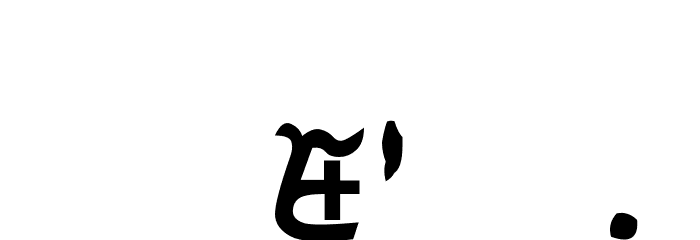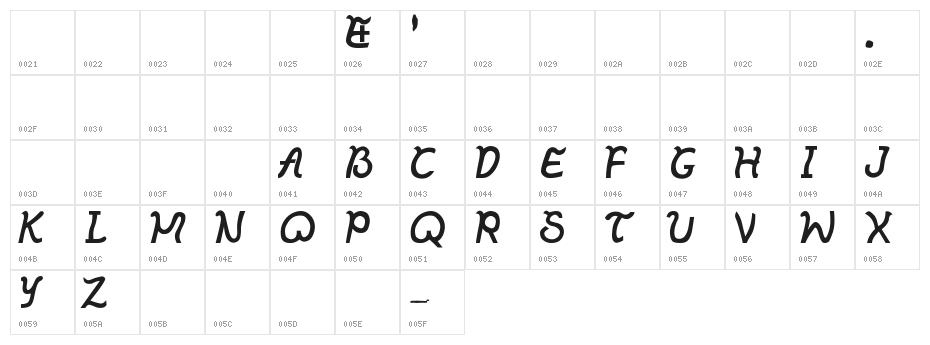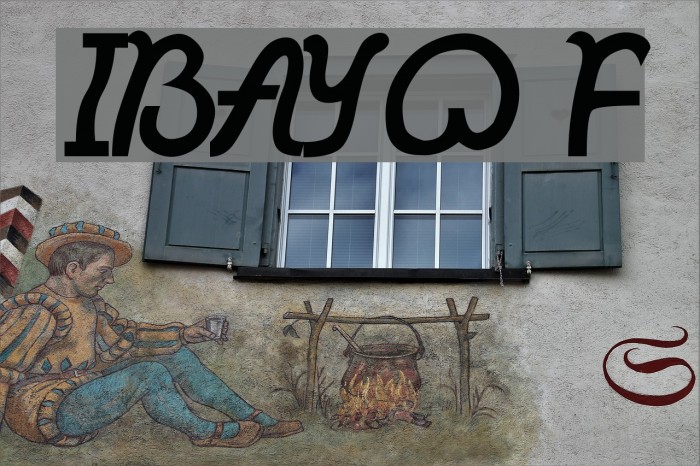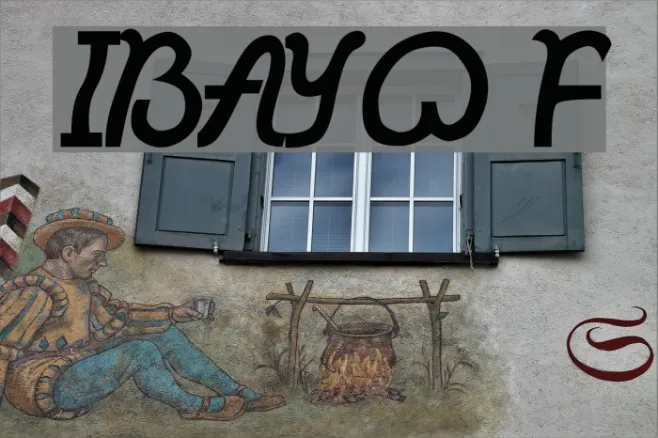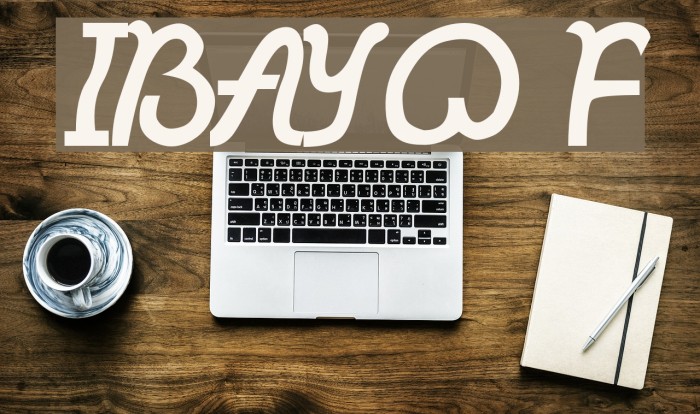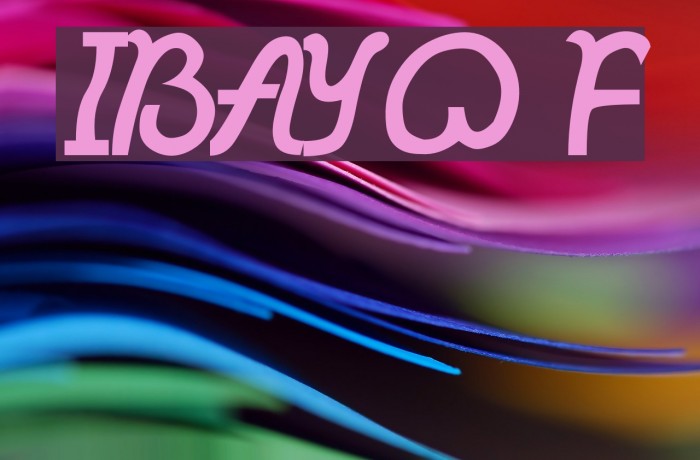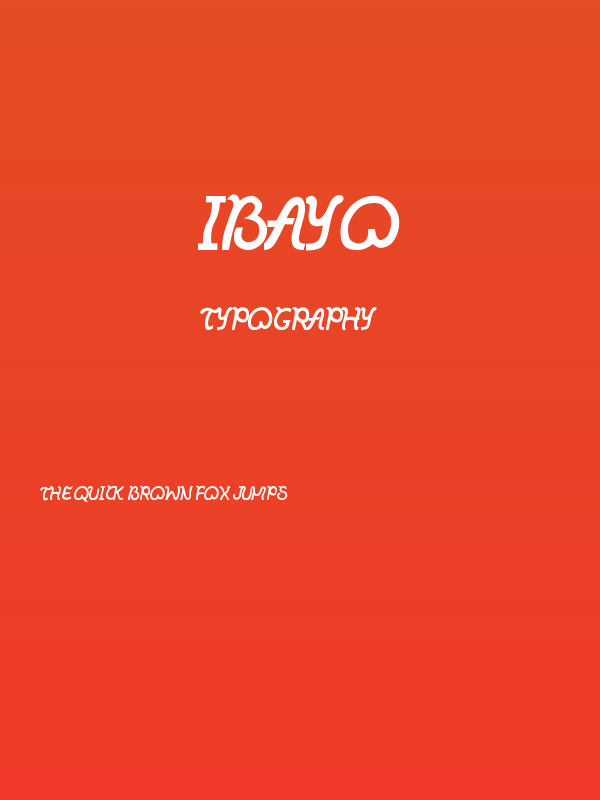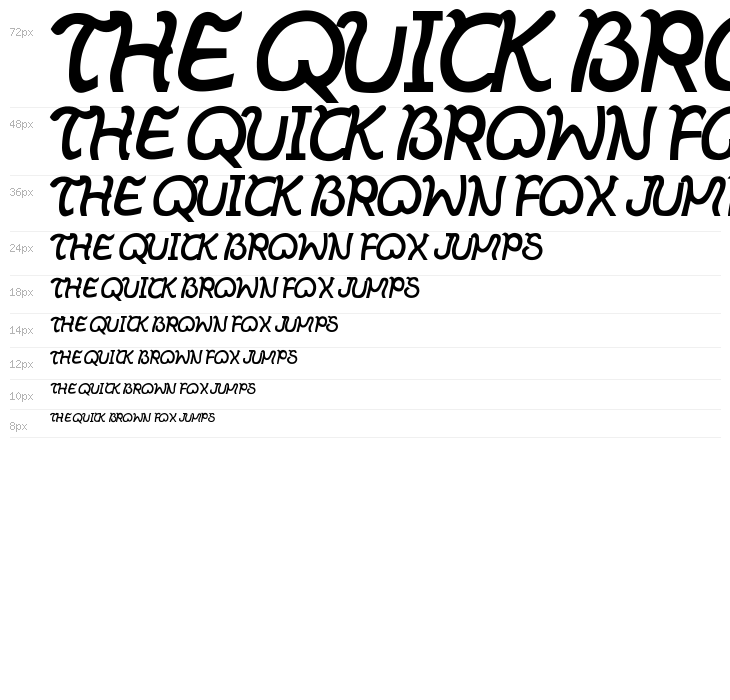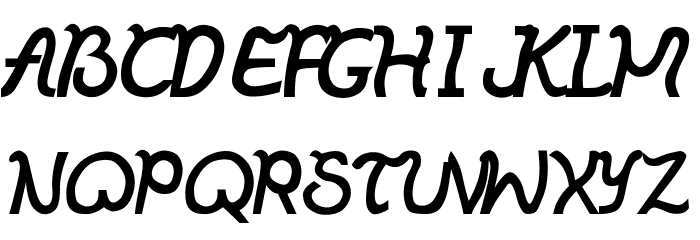
IBAYO Font
IBAYO Description
This font features a bold, decorative style with a strong emphasis on curves and flourishes. The uppercase letters are characterized by their thick strokes and dynamic, flowing lines, giving them a sense of movement and elegance. The lowercase letters maintain this fluidity, creating a cohesive and harmonious look. The font's unique style is further accentuated by its high contrast between thick and thin strokes, adding to its visual impact. The overall design is reminiscent of classic calligraphy, yet it retains a modern twist, making it suitable for a variety of creative applications.
IBAYO UPPERCASE
IBAYO LOWERCASE
IBAYO OTHER CHARS